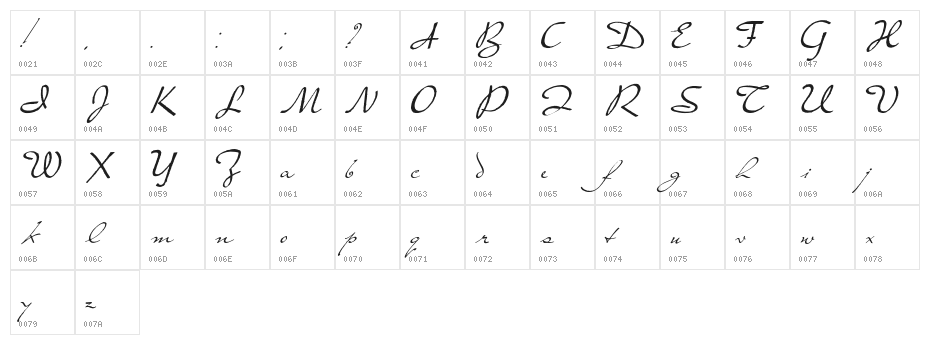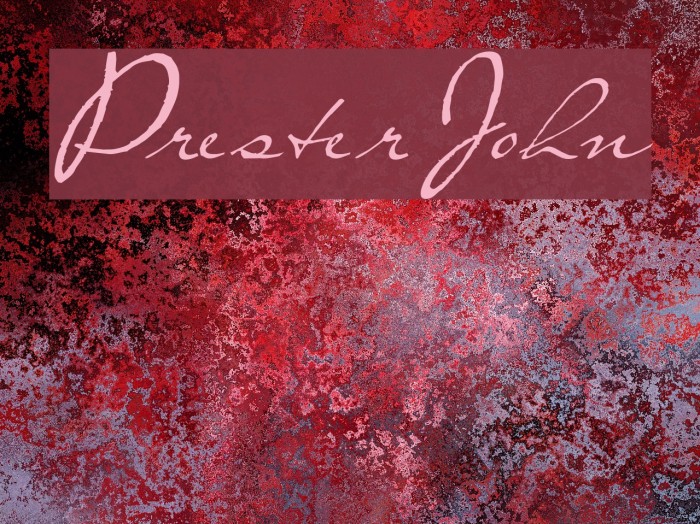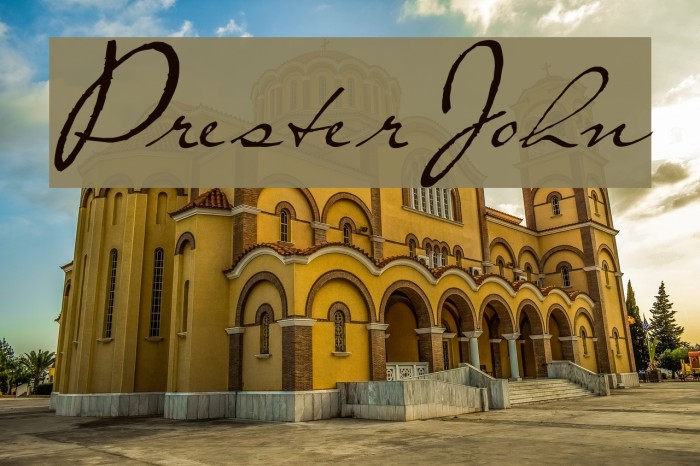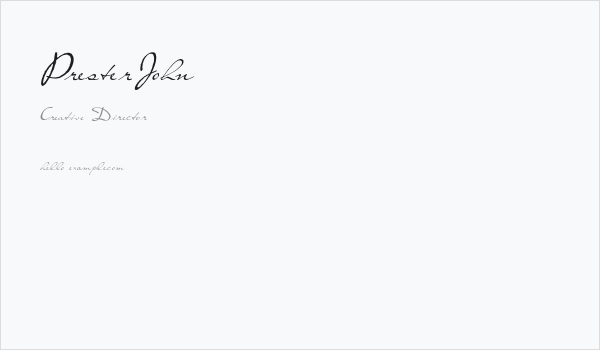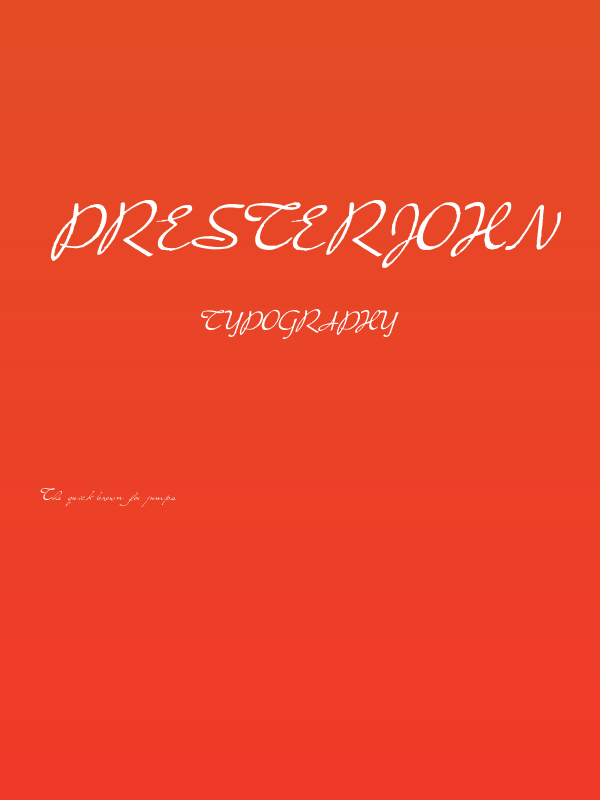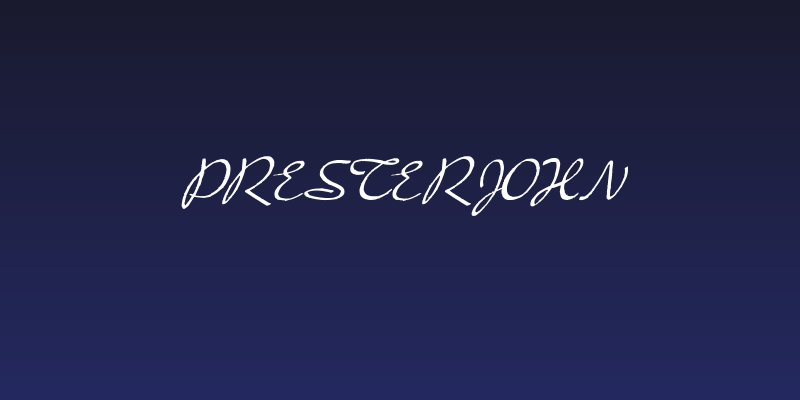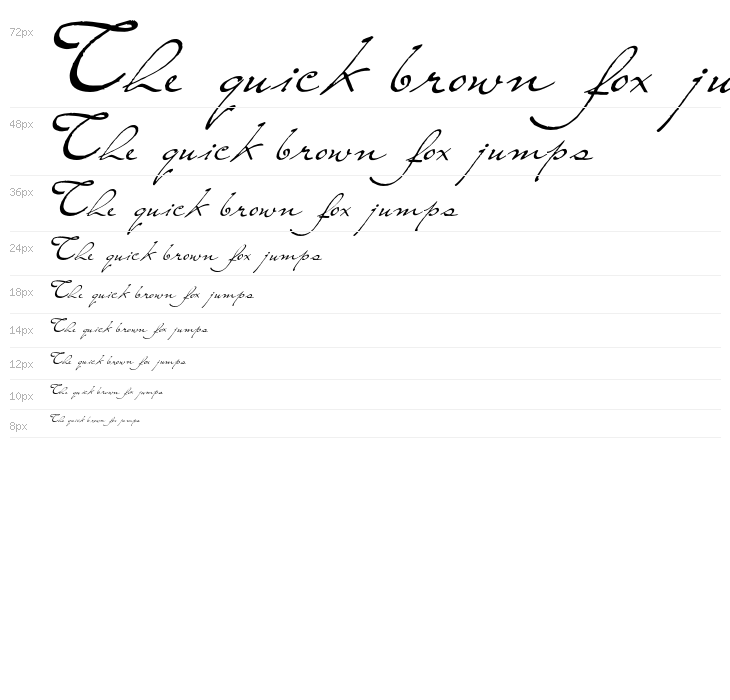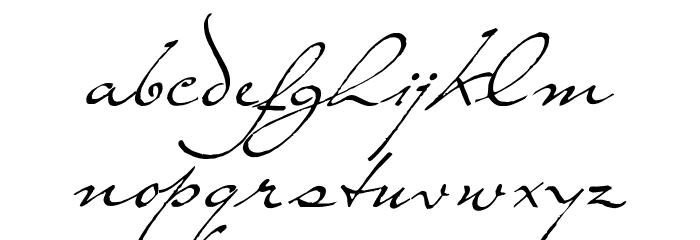
PresterJohn Font
PresterJohn Description
This elegant script font features a fluid and graceful style, reminiscent of traditional calligraphy. The uppercase letters are ornate with sweeping curves and flourishes, while the lowercase letters maintain a consistent flow with delicate loops and connections. The font exudes a sense of sophistication and artistry, making it ideal for formal invitations, certificates, and decorative purposes. The characters are well-balanced, with a slight slant that enhances the handwritten appearance. The overall design is both classic and timeless, suitable for projects that require a touch of elegance and refinement.
| Use Case | Headlines, Decorative text, Invitations |
| Proposed Projects | Ideal for wedding invitations, formal event programs, certificates, and artistic projects. |